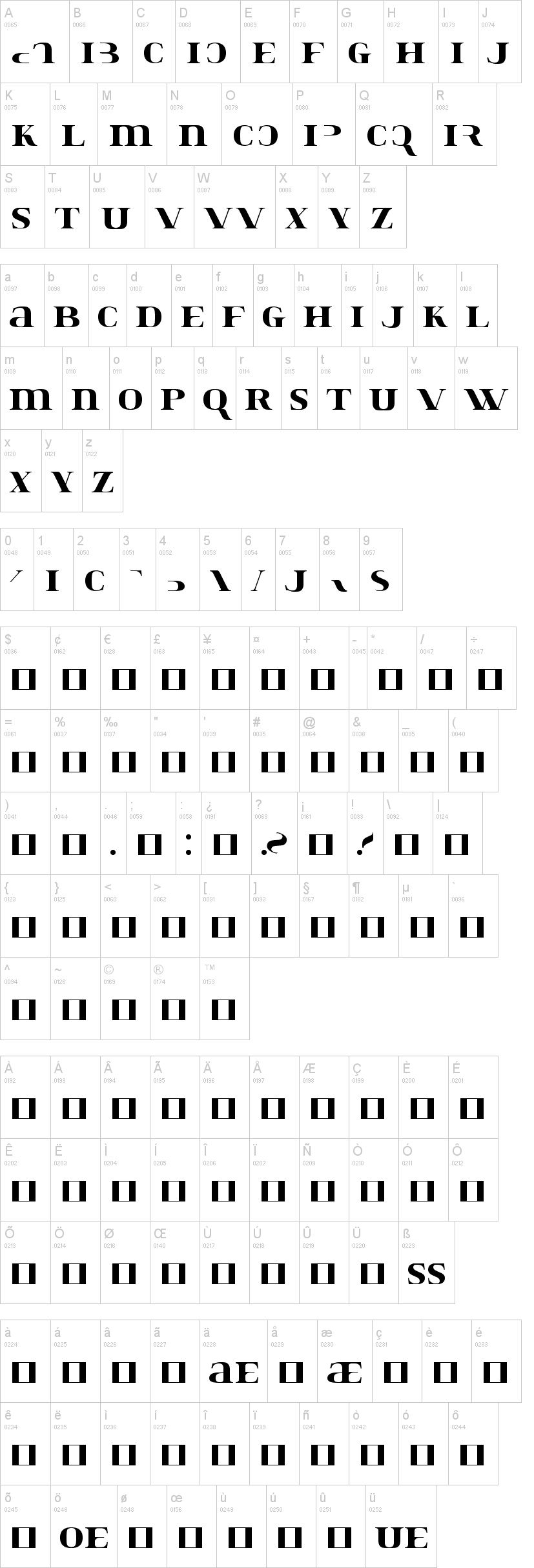
Note of the authorKonstata Stencil features a set of only 10 different elements out of which the complete typeface can be composed. Therefore it borders between being somewhat
grungy, modular and classic and greatly saves space in your backpack when stenciling.